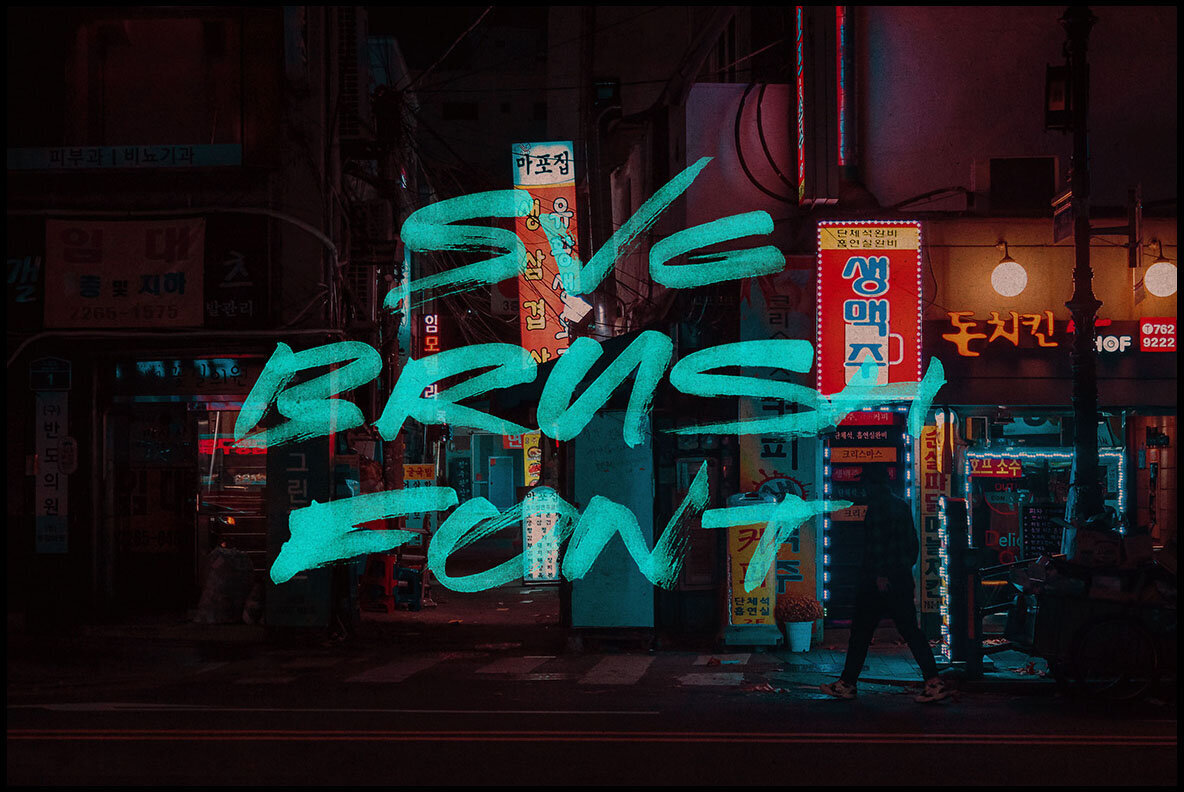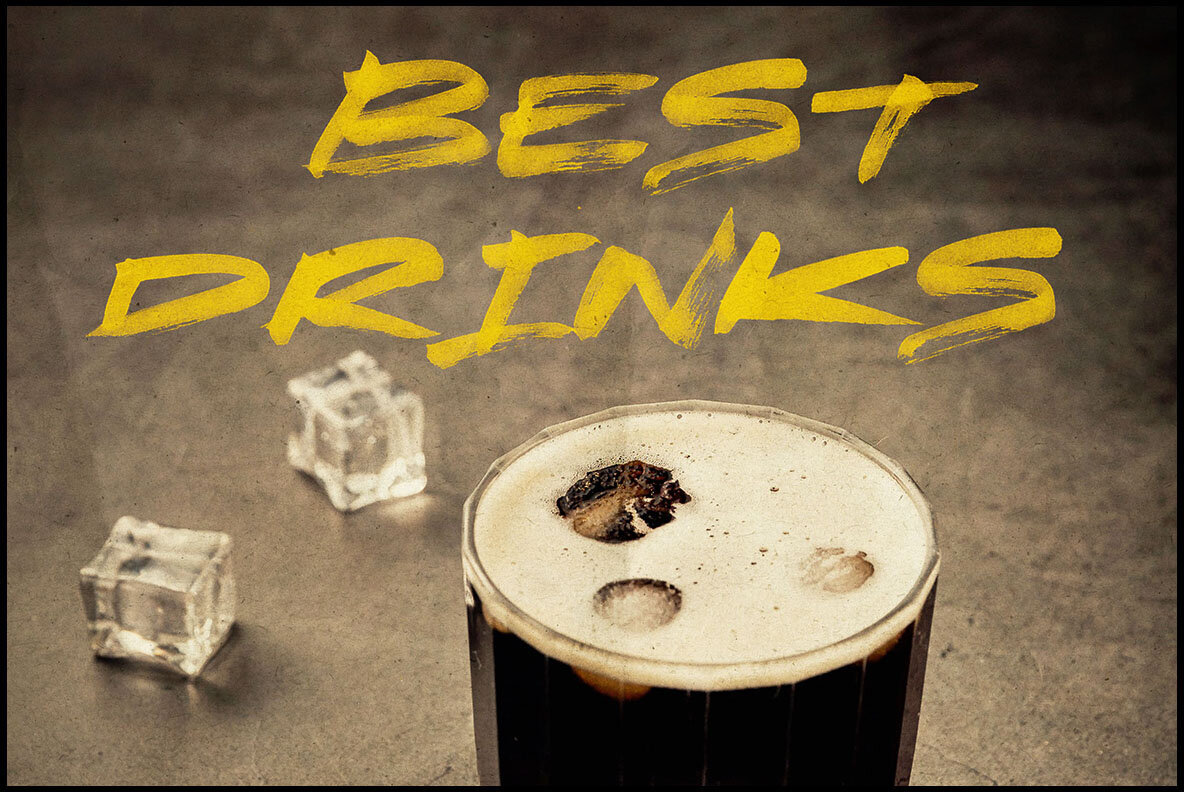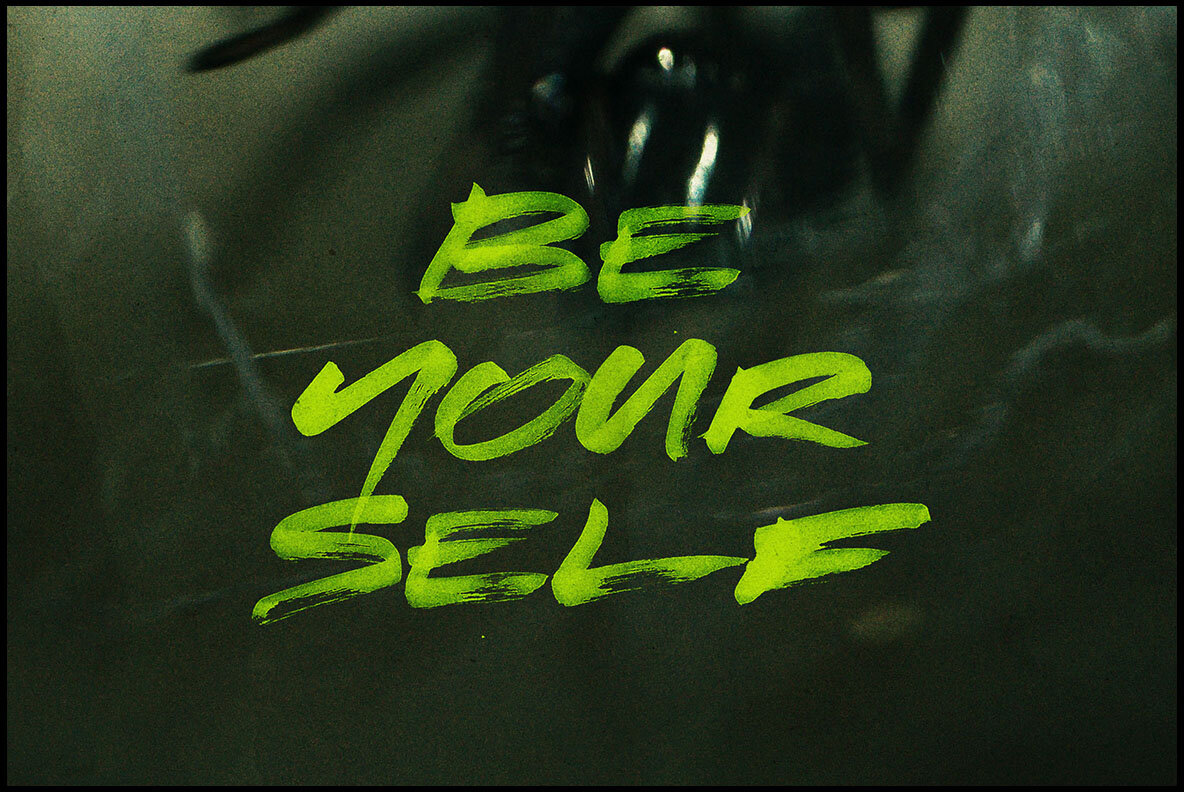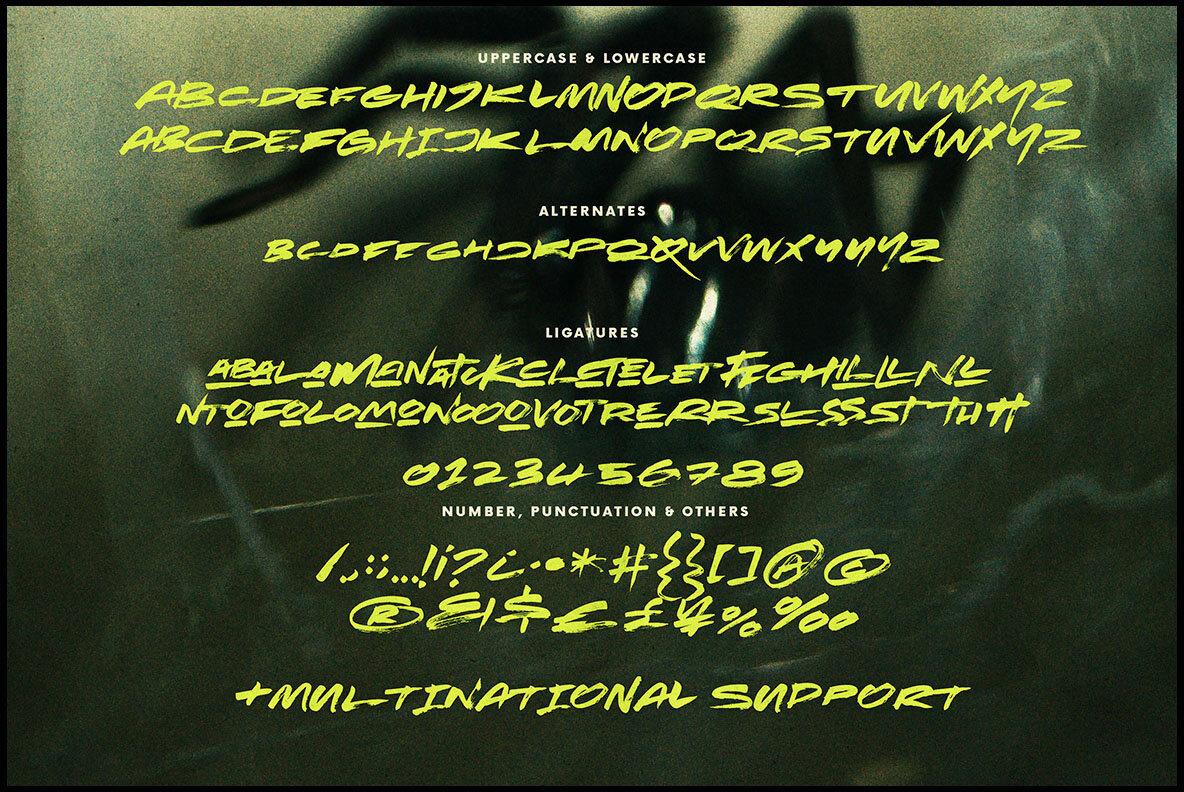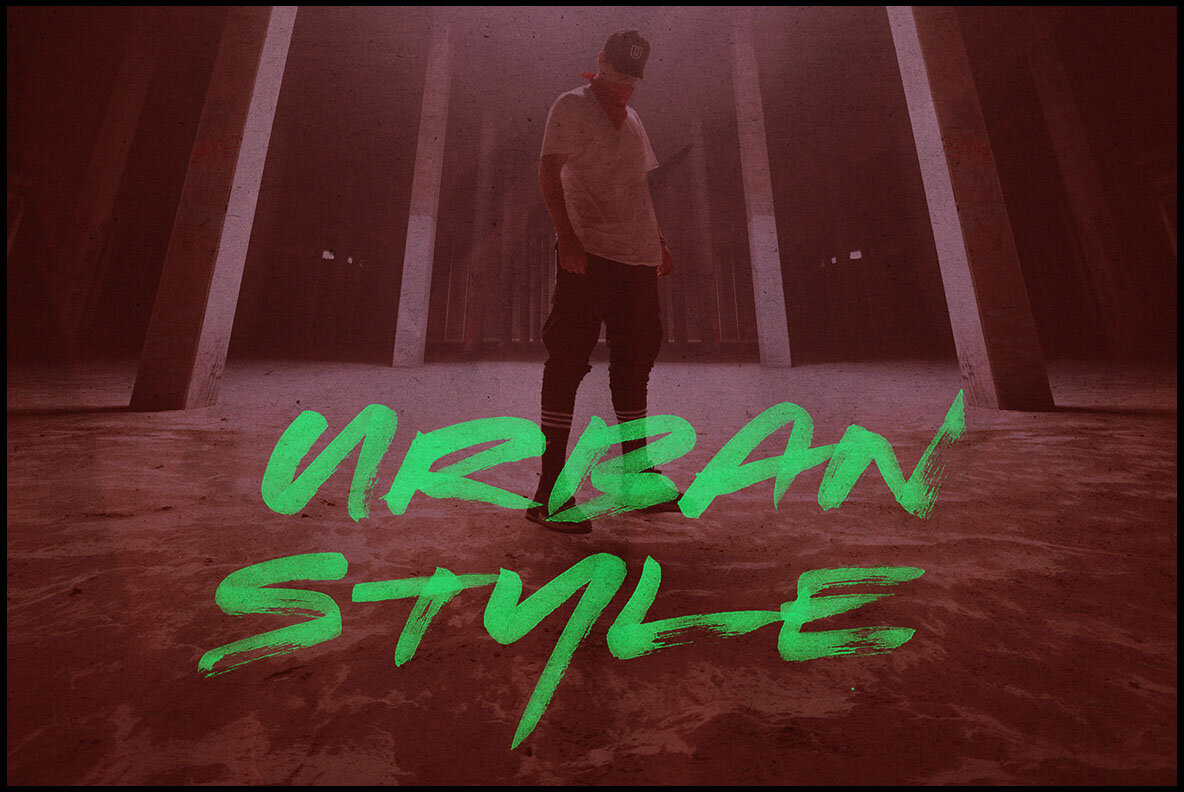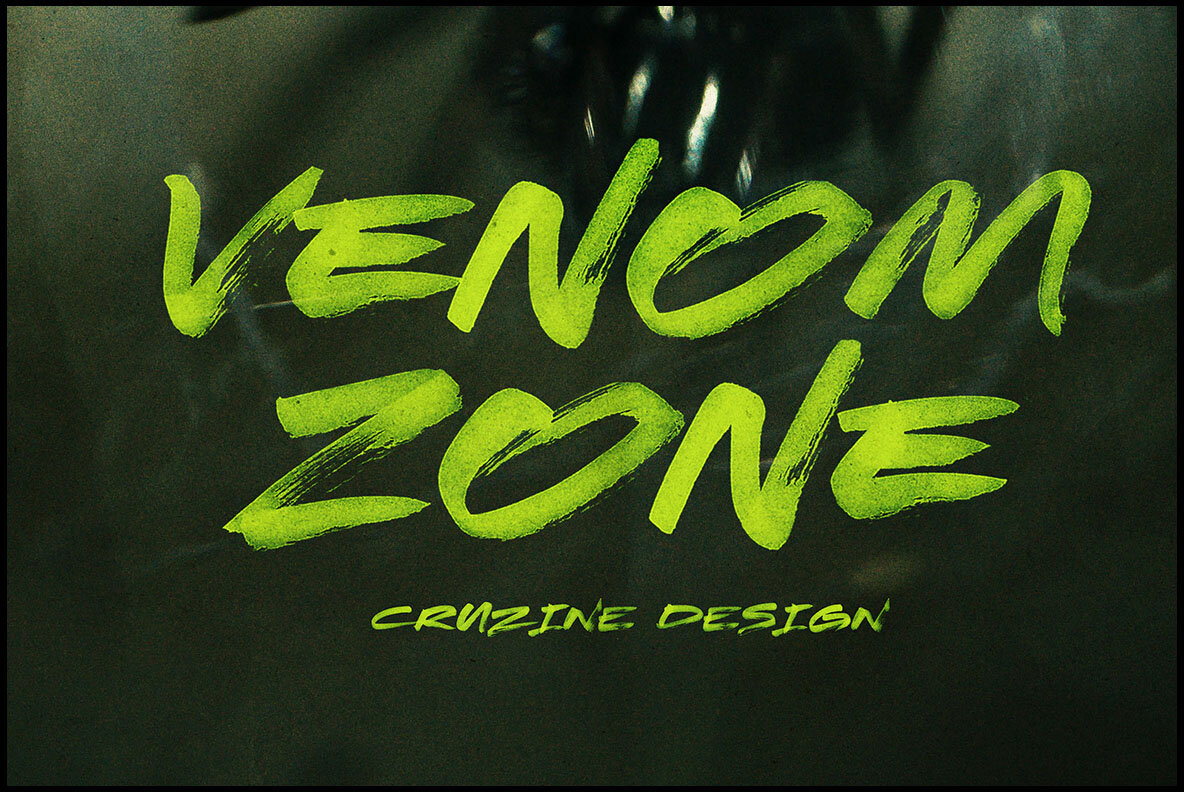
Venom Zone Font
Embrace the bold and edgy design of Venom Zone by Peter Olexa, a brush-style sans serif display font. Handwritten with a bold marker effect, it's an excellent choice for grunge, urban, or artistic projects.Venom Zone: Grunge Style Sans Serif